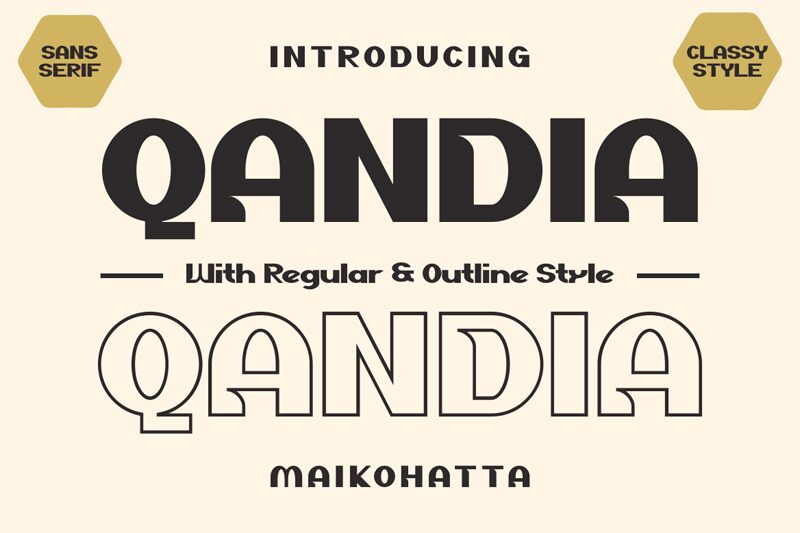
QANDIA Bold
Qandia Bold, a striking sans-serif font crafted by designer Gilang Ternadho, exudes a bold and confident presence. With its sharp, clean lines and a distinctive geometric aesthetic, this font commands attention and evokes a sense of modern sophistication. The bold weight lends a strong, authoritative tone, making it an appealing choice for a wide range of design projects.
Qandia Bold's versatility shines through, making it a suitable option for branding, headlines, and eye-catching display text. Its assertive nature lends itself well to various applications, from impactful editorial layouts to dynamic packaging design. The font's seamless integration of form and function allows designers to create visually striking compositions that captivate the audience.